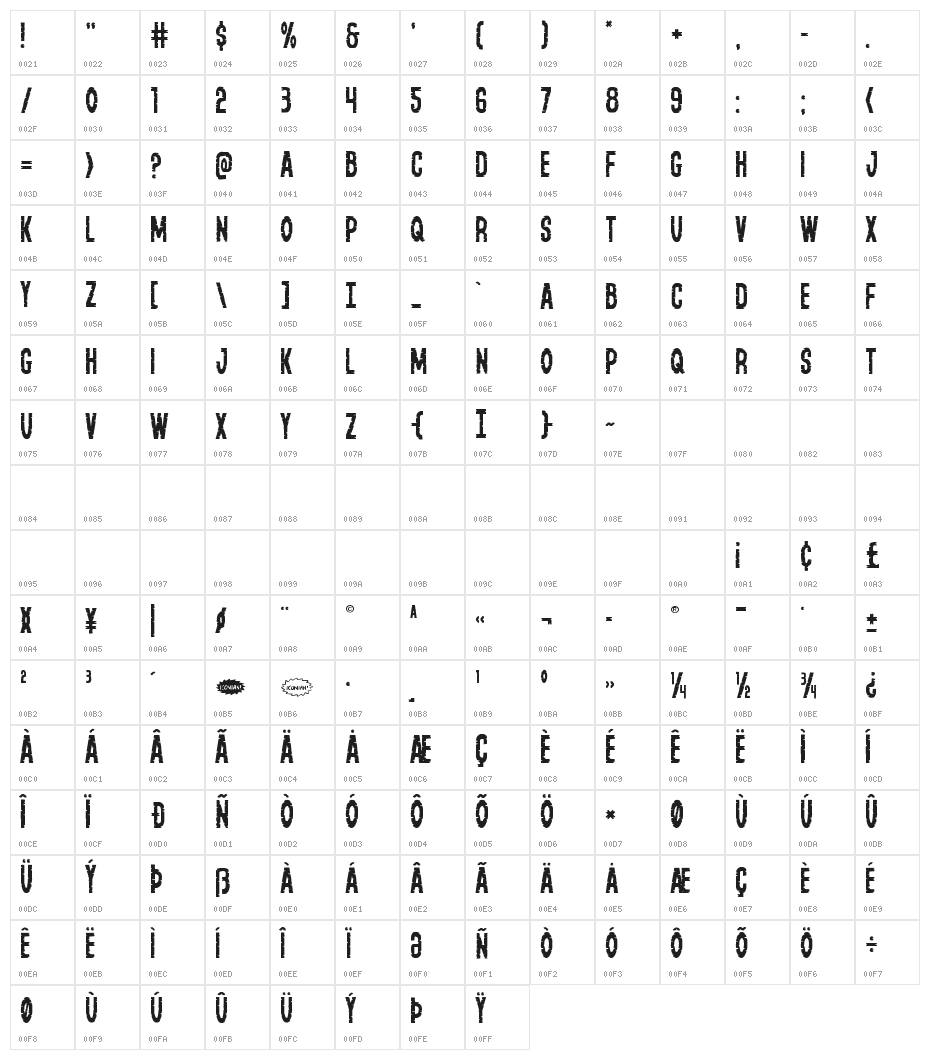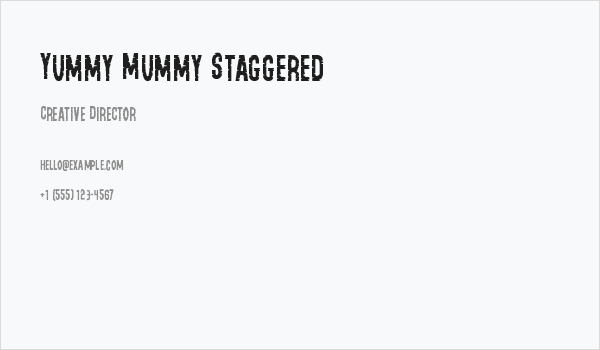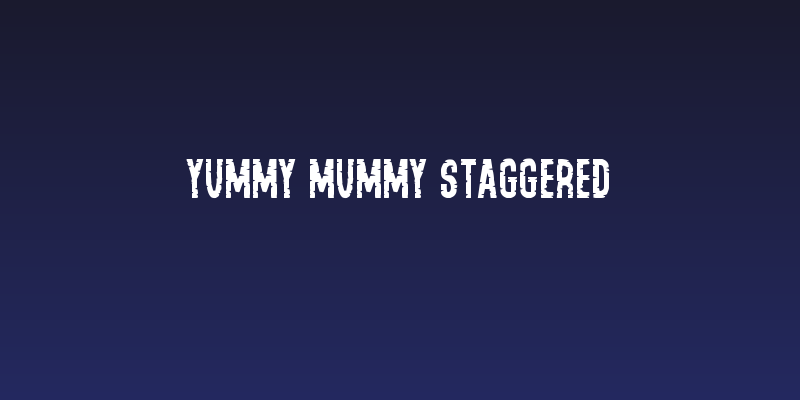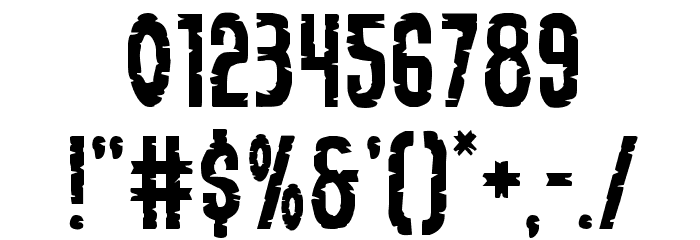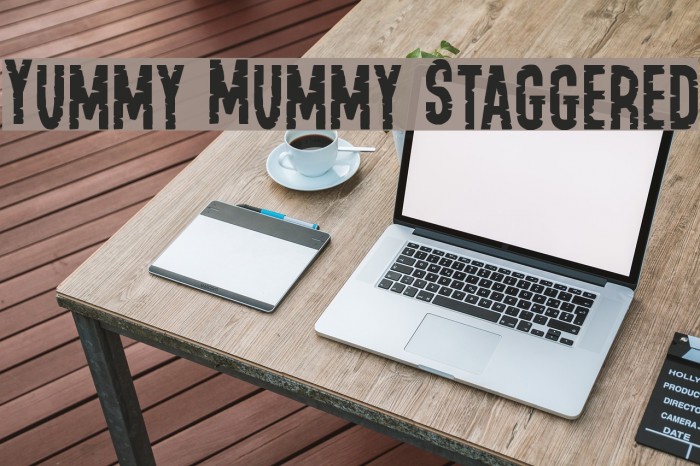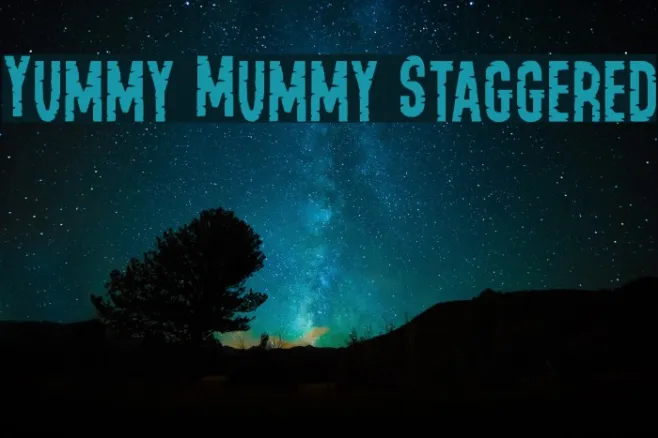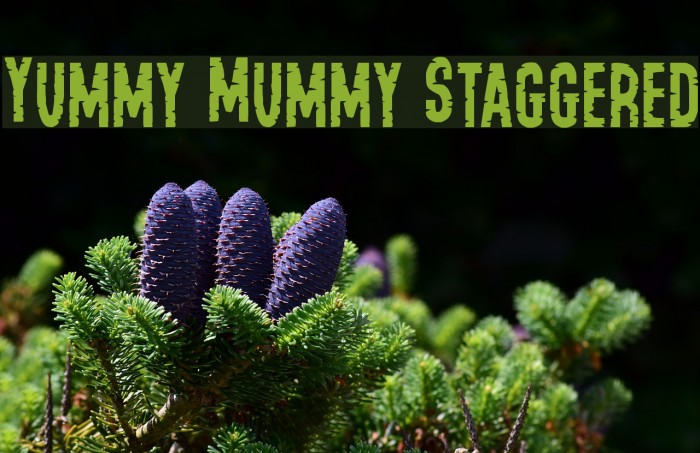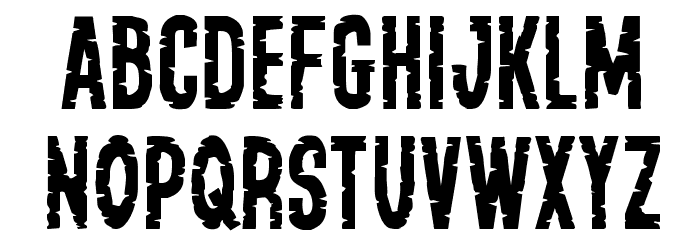
Yummy Mummy Staggered Font
Yummy Mummy Staggered Description
This font features a bold and rugged design with a distressed appearance, giving it a unique and edgy look. The characters are heavily stylized with irregular edges and a staggered, worn-out texture that adds a sense of movement and energy. The uppercase and lowercase letters maintain a consistent style, while the numbers and special characters complement the overall aesthetic. This font is ideal for projects that require a bold statement or a vintage, grunge-inspired theme.
| Overall Style | Vintage, Grunge |
| Proposed Projects | Ideal for posters, album covers, branding for edgy products, or any design needing a vintage or grunge aesthetic. |